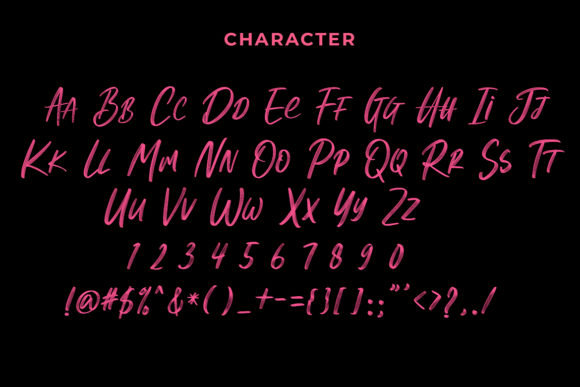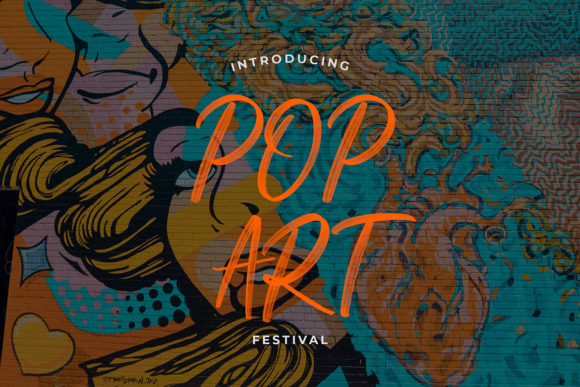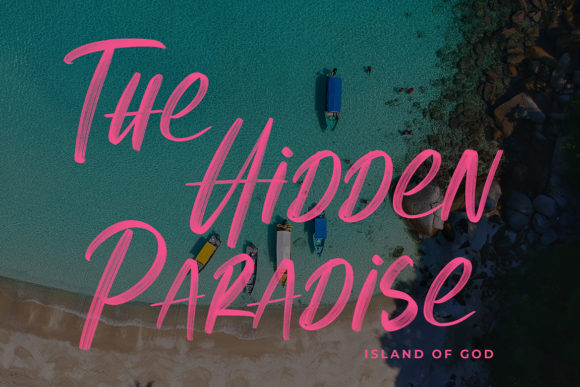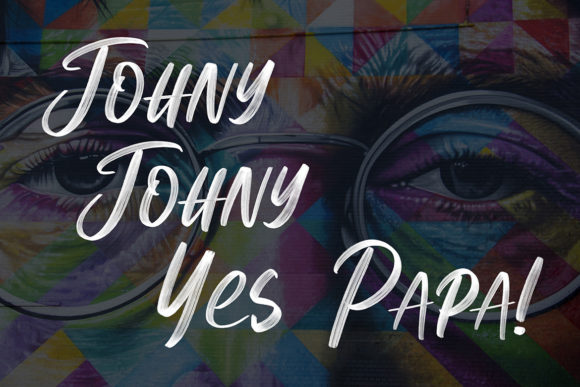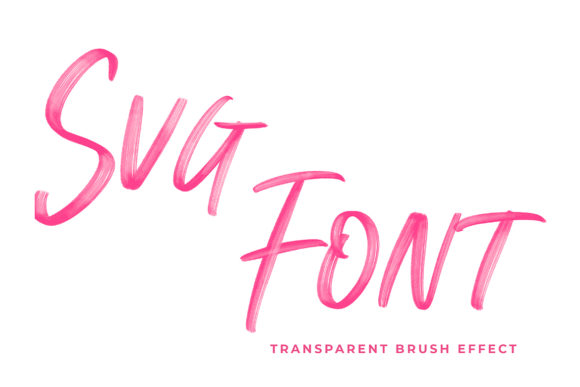
Black Gold Font
About Black Gold Font
Black Gold is a stunning script that radiates authenticity. It will make turn any design project into a true eye-catcher!